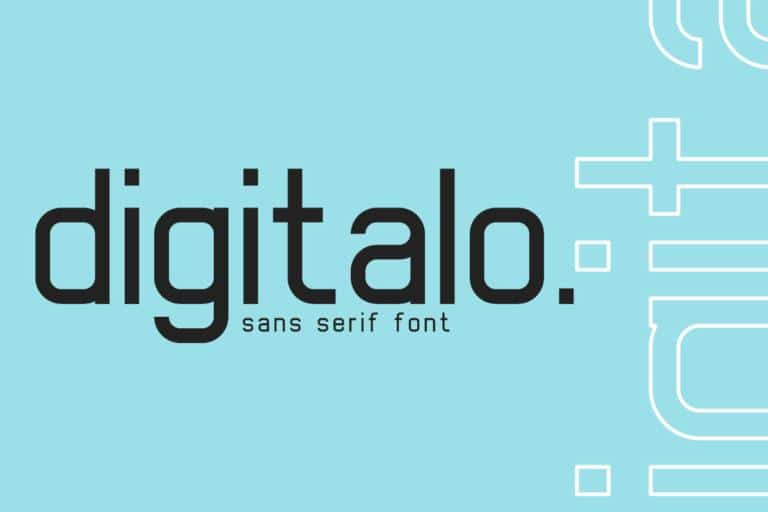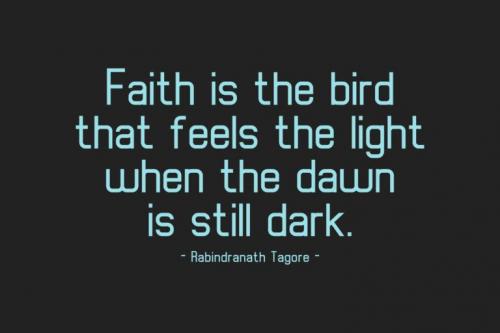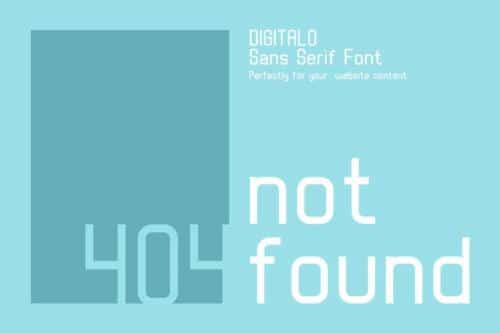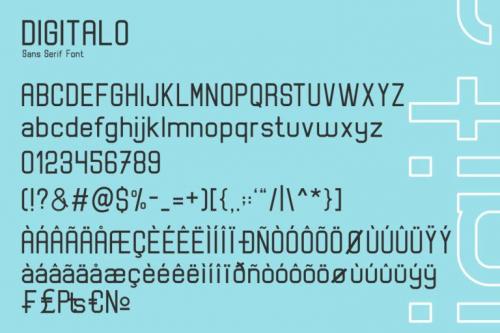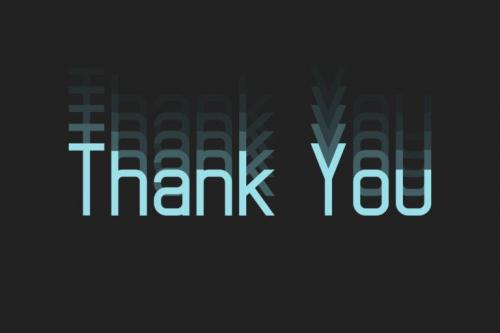
Digitalo is a Regular and authentic display font. It celebrates abstract shapes in all their eclectic beauty. This font will look truly outstanding in a wide range of contexts.
- Designer: Din Studio